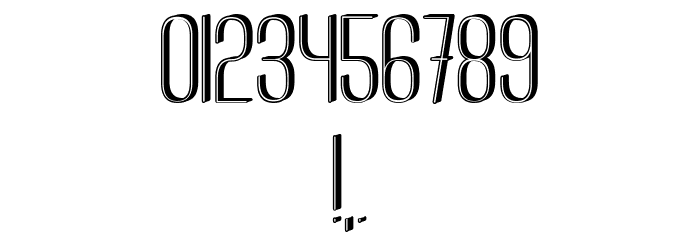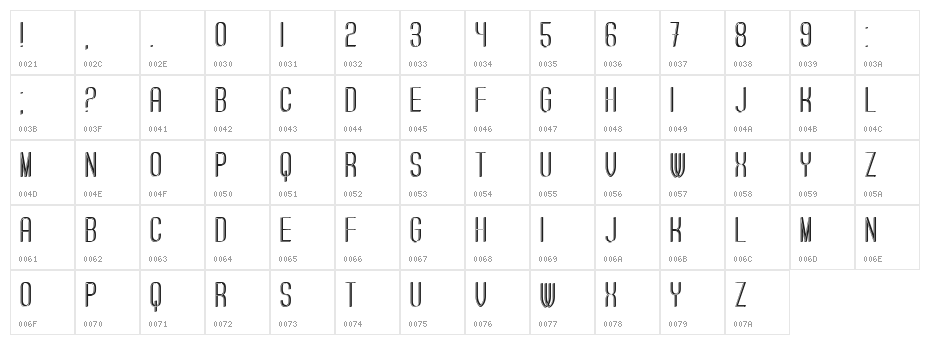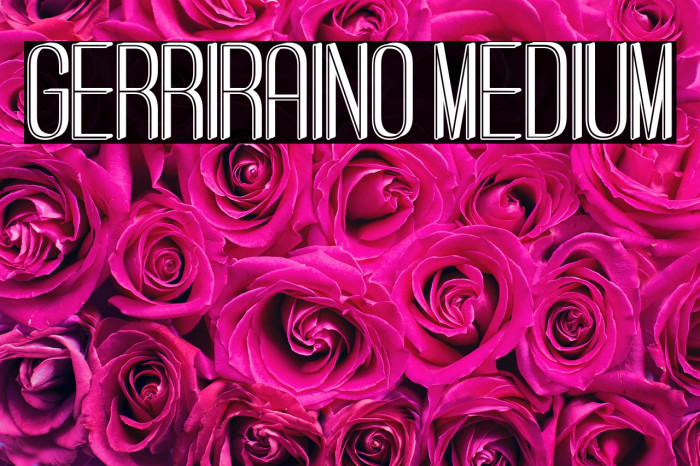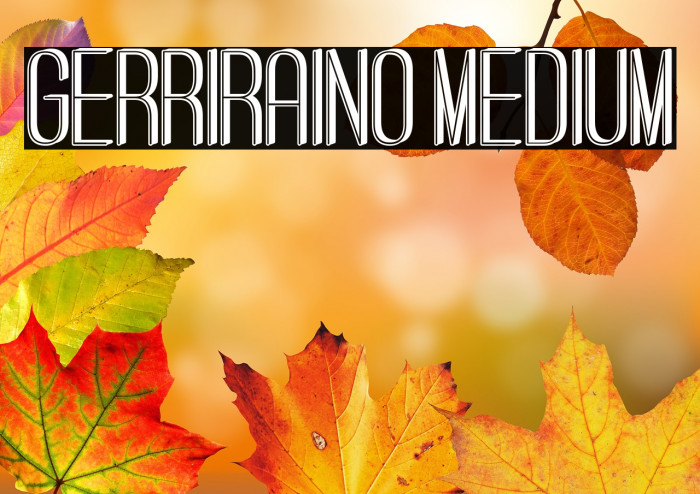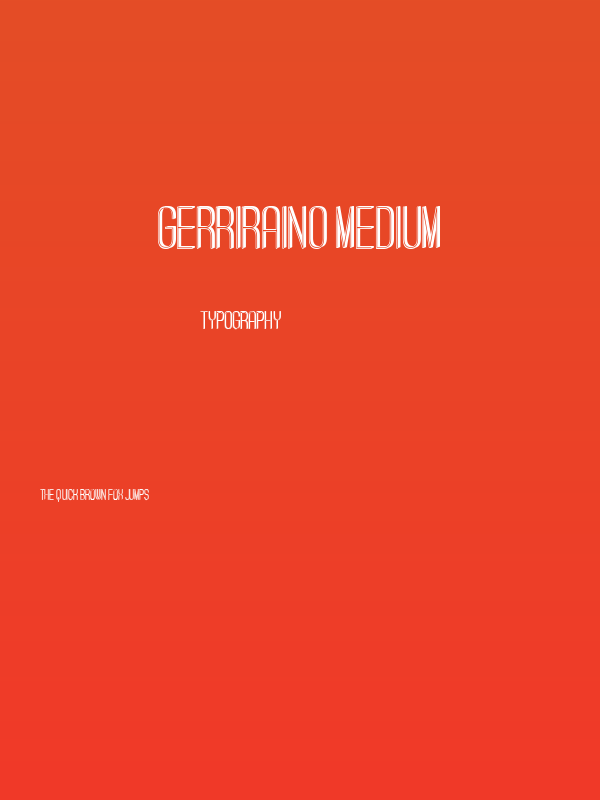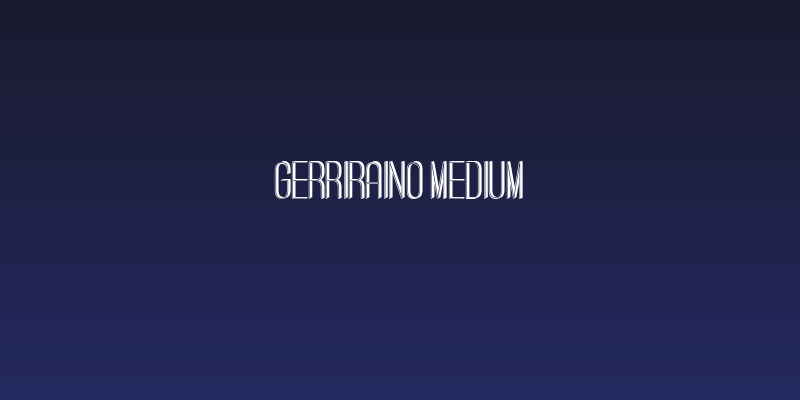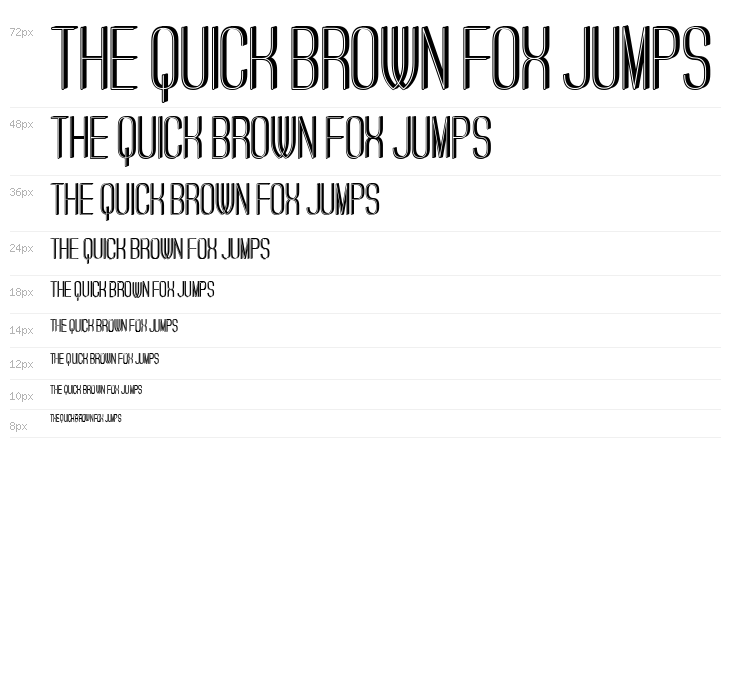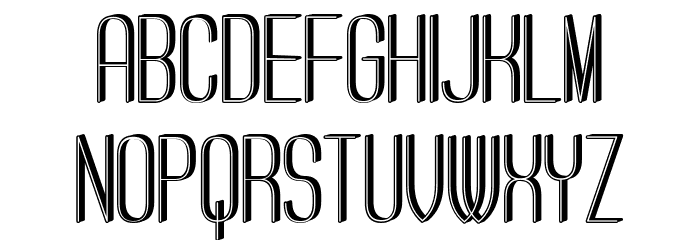
Gerriraino Medium Font
Gerriraino Medium Description
This font features a modern and sleek design with elongated, narrow characters that give it a distinctive and stylish appearance. The characters are outlined with a double-line effect, creating a sense of depth and dimension. The uppercase and lowercase letters maintain a consistent height, contributing to a uniform look. The numerals are designed to match the alphabet's style, ensuring cohesion across all characters. The special characters are crafted with the same attention to detail, making them seamlessly integrate with the rest of the font. This font's unique style makes it suitable for projects that require a contemporary and eye-catching typeface.
| Proposed Projects | Ideal for branding, posters, headlines, and any design project that requires a modern and stylish typeface. |